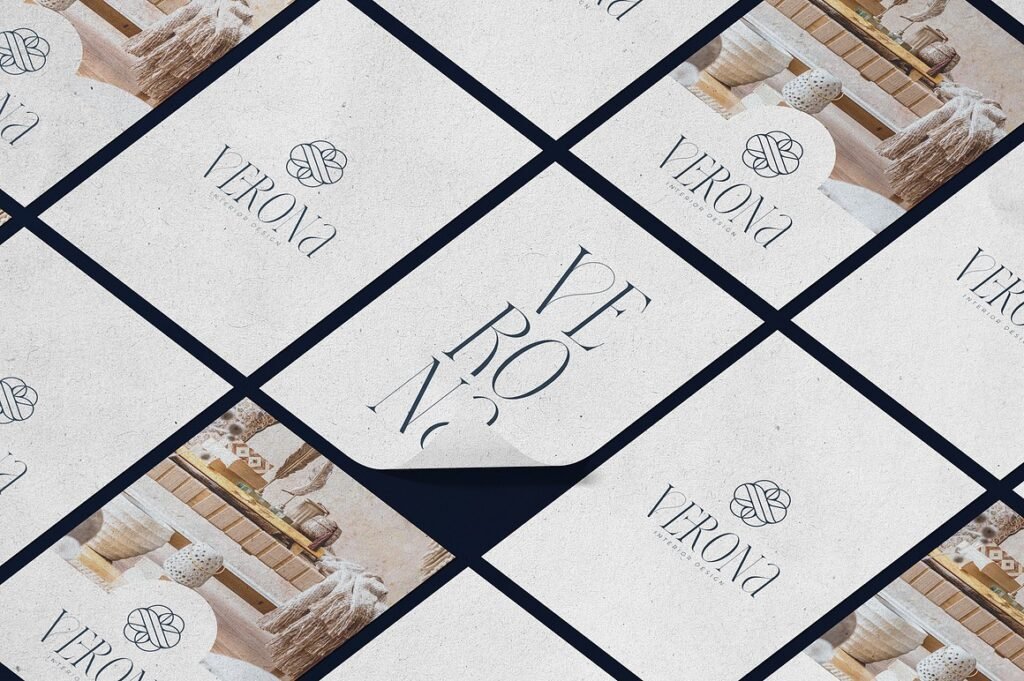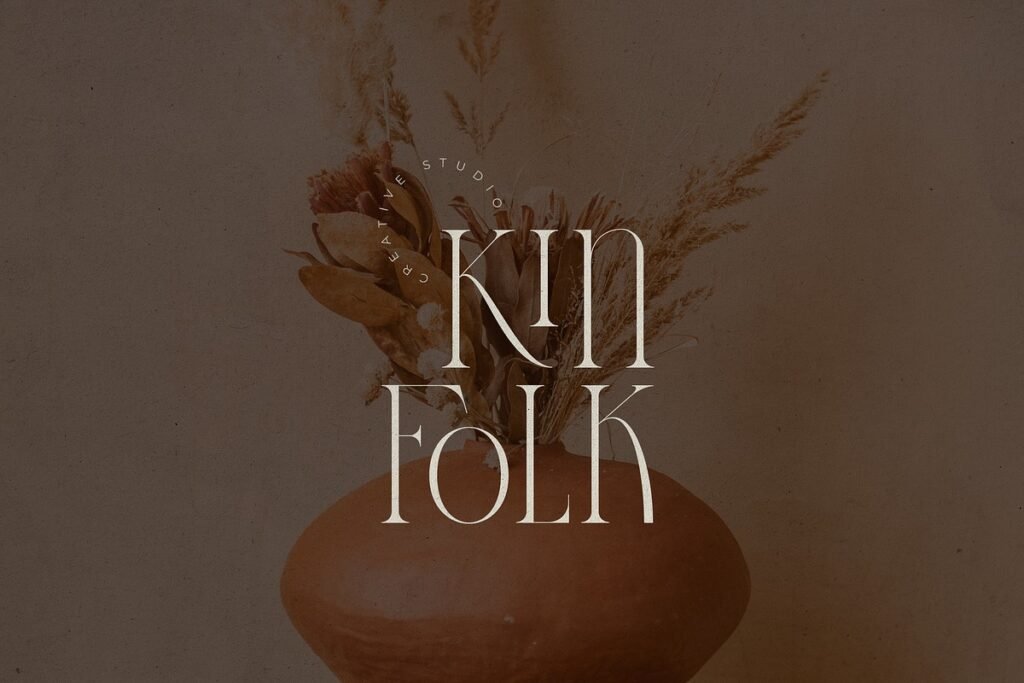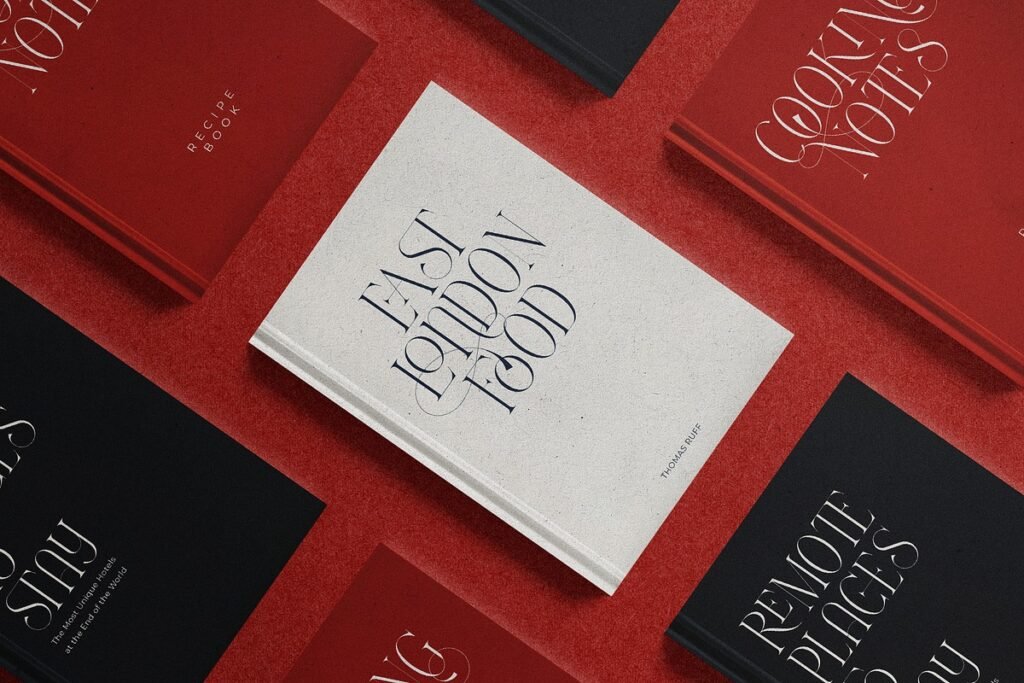
It is a high-contrast serif font crafted with elegance and drama in mind. Designed for luxury branding, editorial design, packaging, and high-impact typographic statements, this typeface blends classic sophistication with modern expressiveness.
✦ Over 250+ Alternates & Ligatures
✦ 16 Stylistic Sets for maximum flexibility
✦ Perfect for logos, magazines, book covers, packaging, fashion, and wedding branding
From delicate swashes to bold uppercase ligatures, we gives you full creative control across multiple design aesthetics.
Use it where words need to feel beautiful.